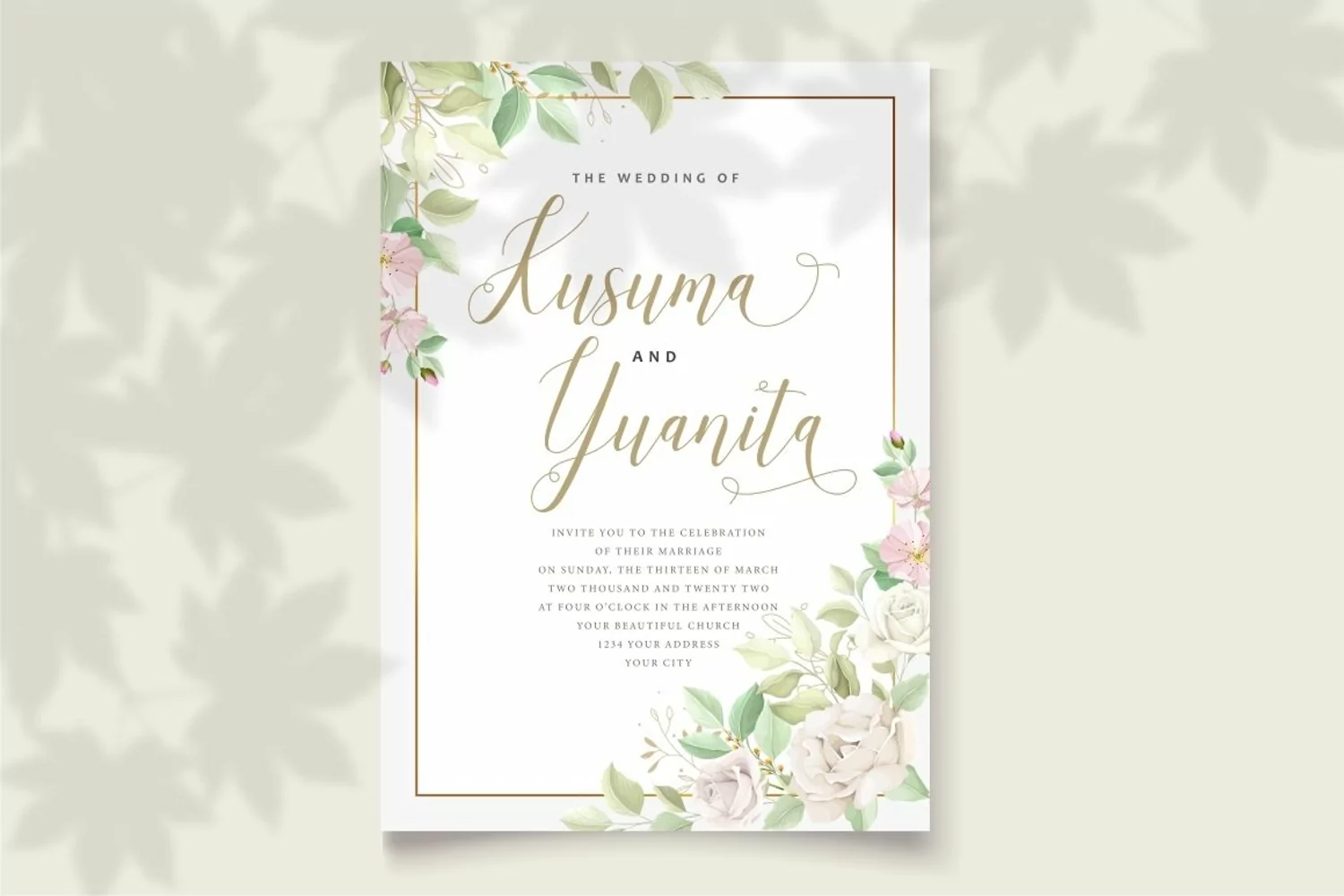
Laniesky - Calligraphy Font
Introducing Laniesky, a calligraphy script font. A lovely, elegant, unique and sweet calligraphy script font.
Come with open type feature with a lot of alternates in each character, its help you to make great lettering.
Laniesky best uses for valentine, wedding, invitation, heading, cover, poster, logos, quotes, product packaging, header, merchandise, social media & greeting cards and many more.
This font is also support multi language.